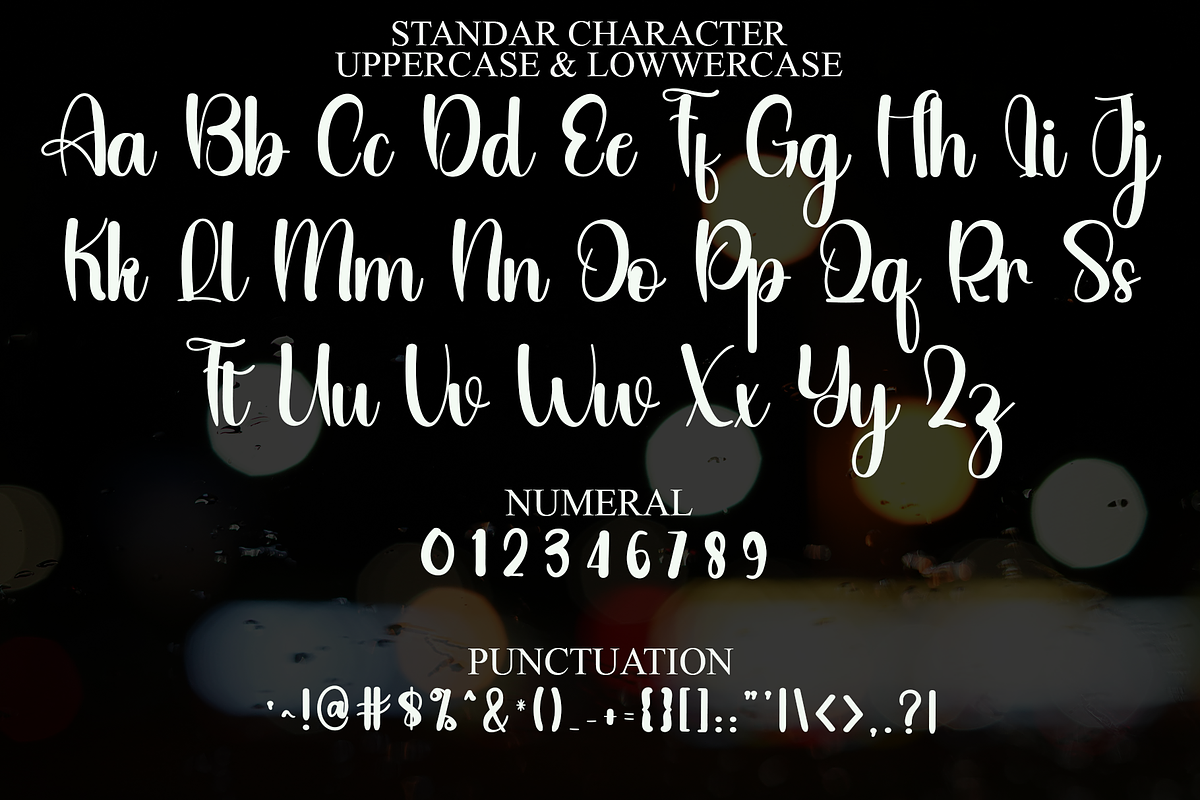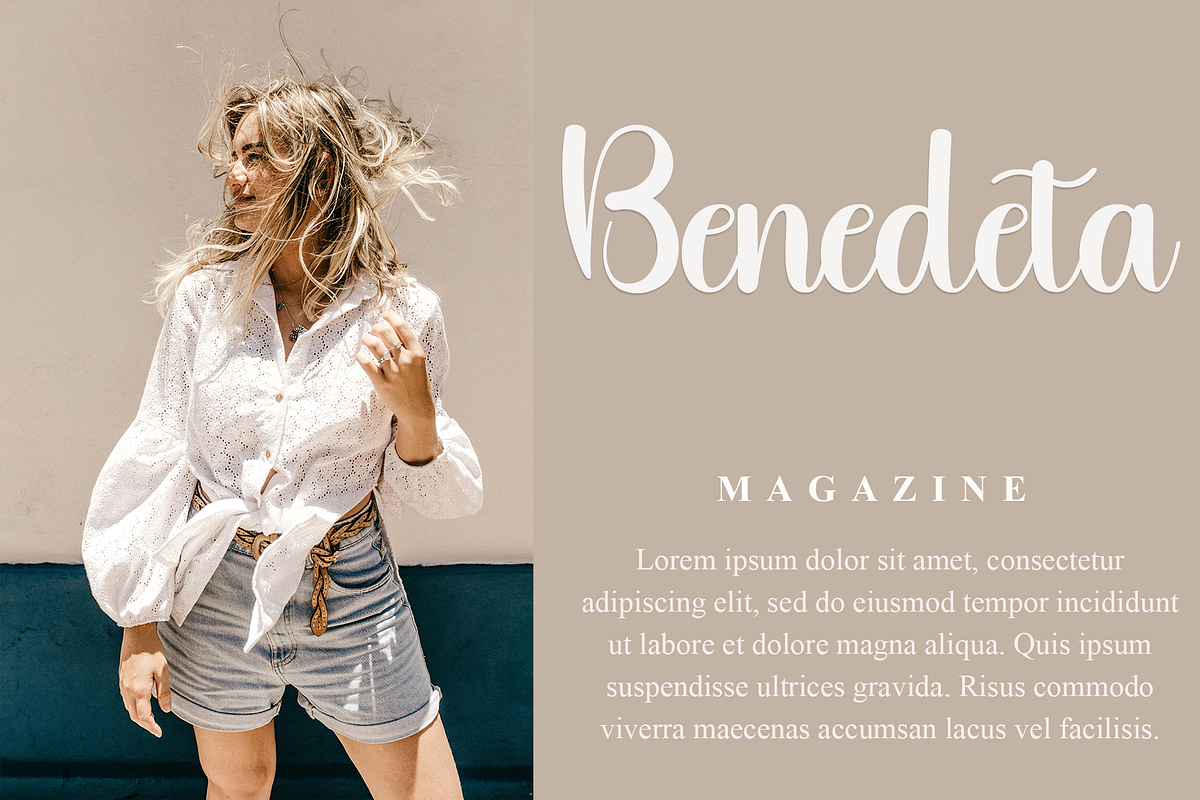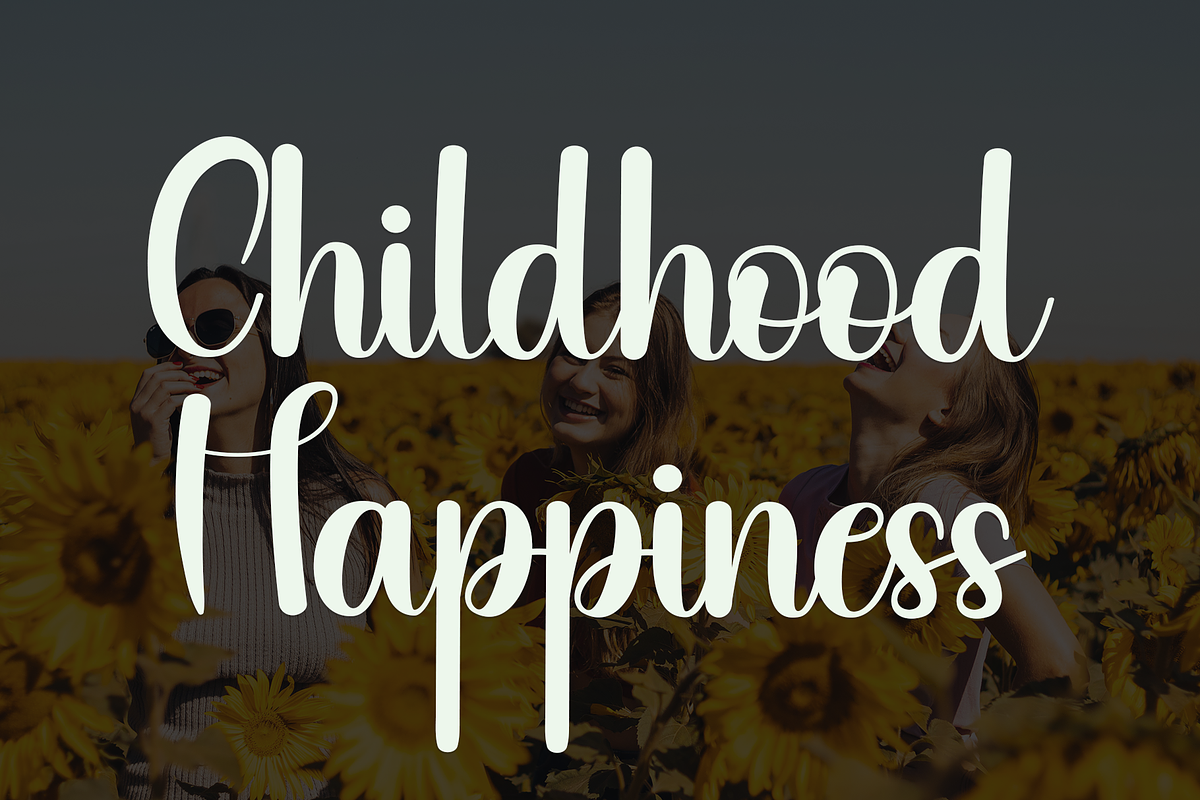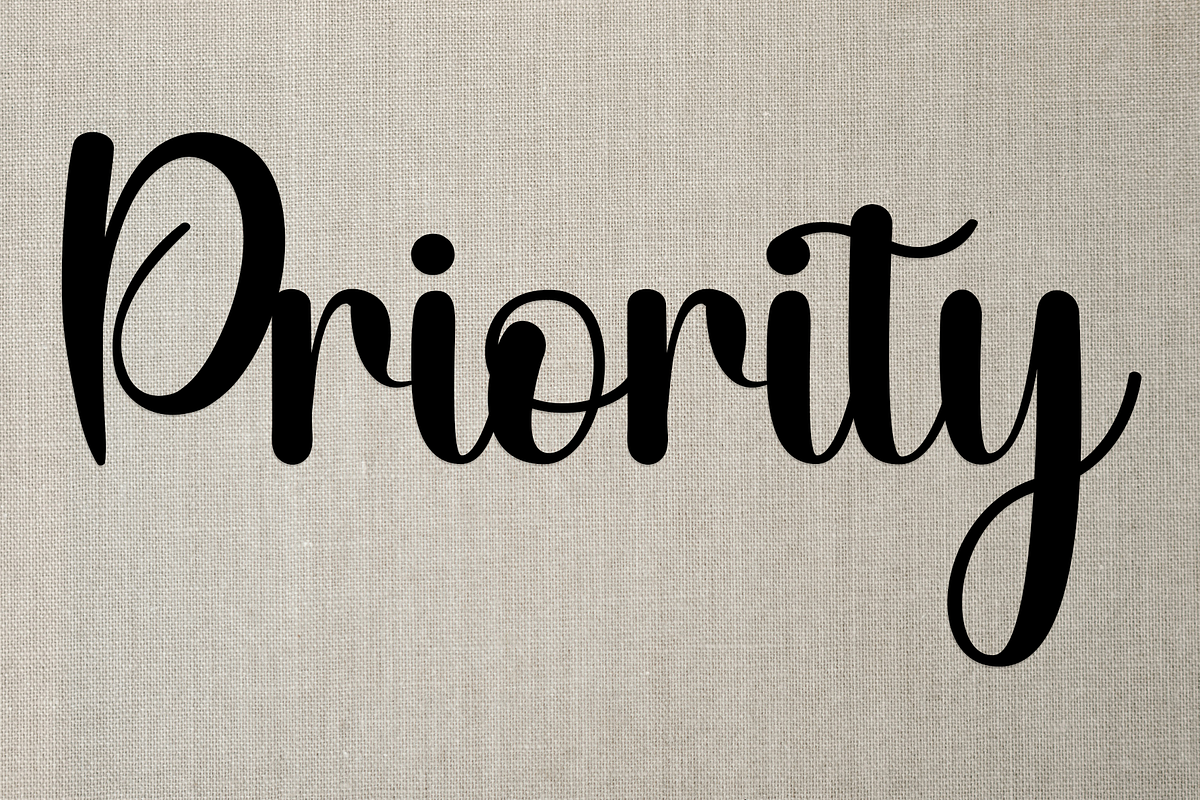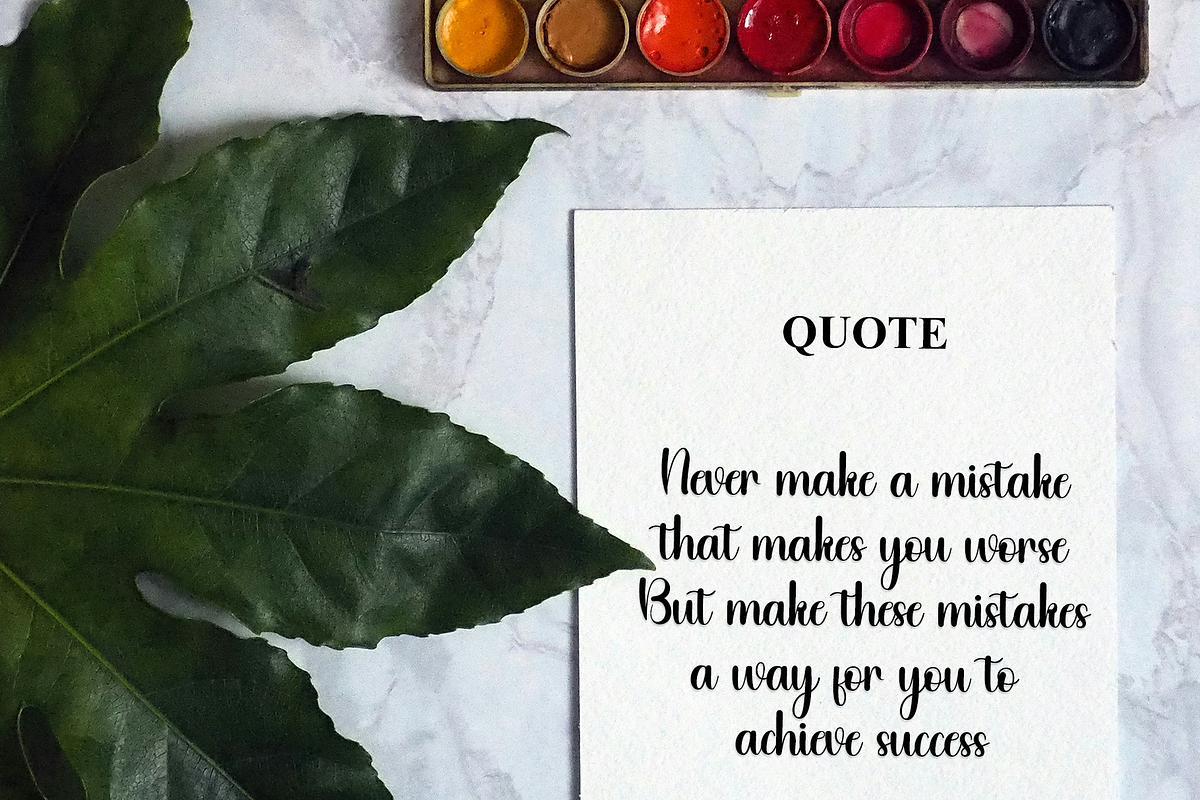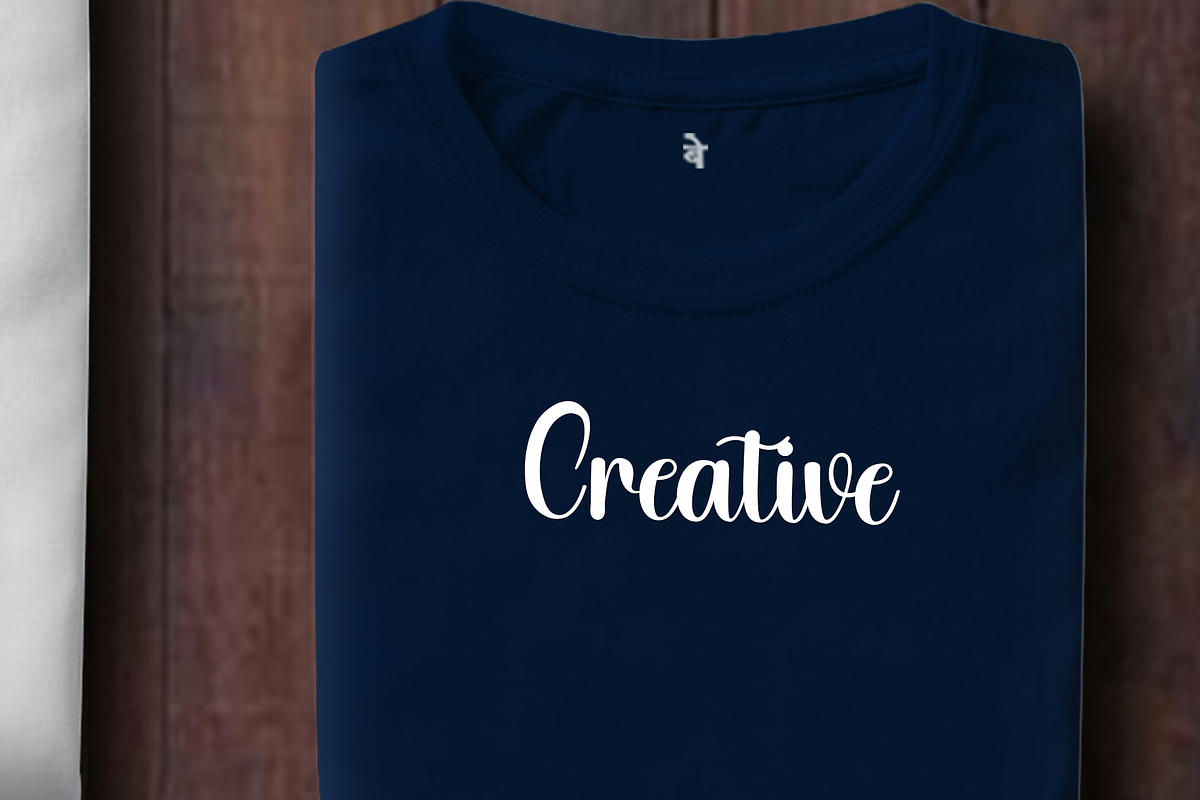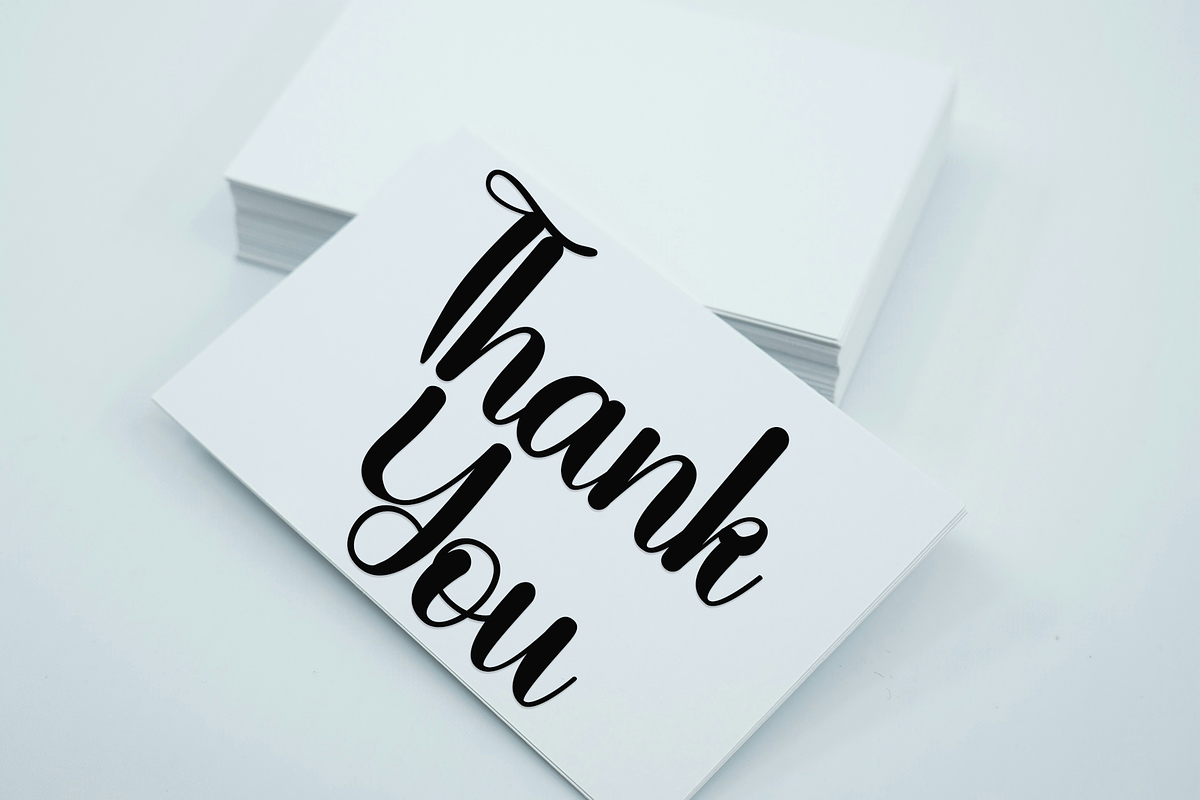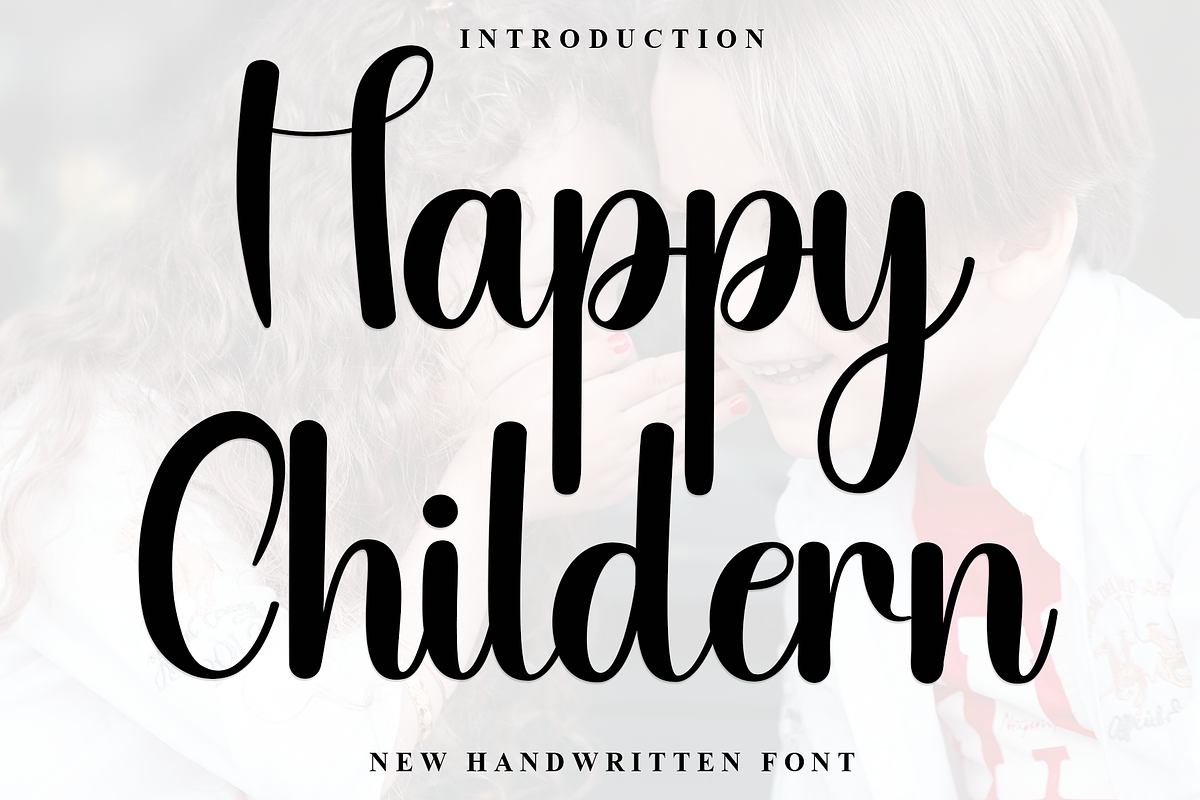
Happy Childern
Happy Childern is a beautiful and eye-catching font designed with a soft, unique touch. Its distinctive strokes give it a special character, making it meaningful and versatile for future use. With various characters, it’s perfect for design projects, crafts, and other creative works.